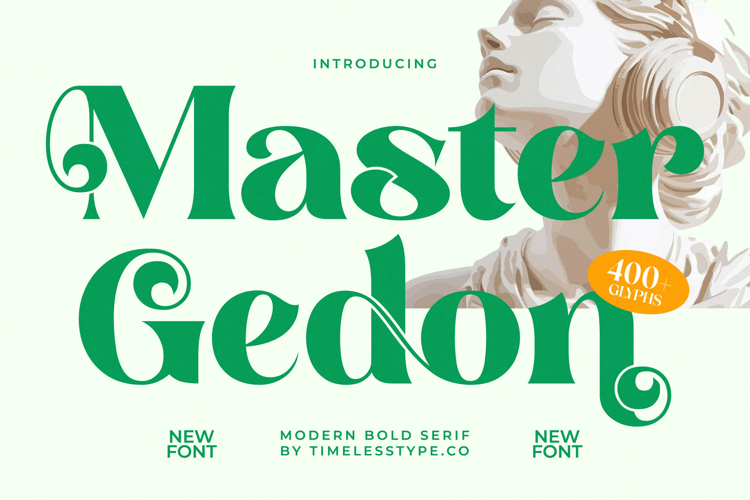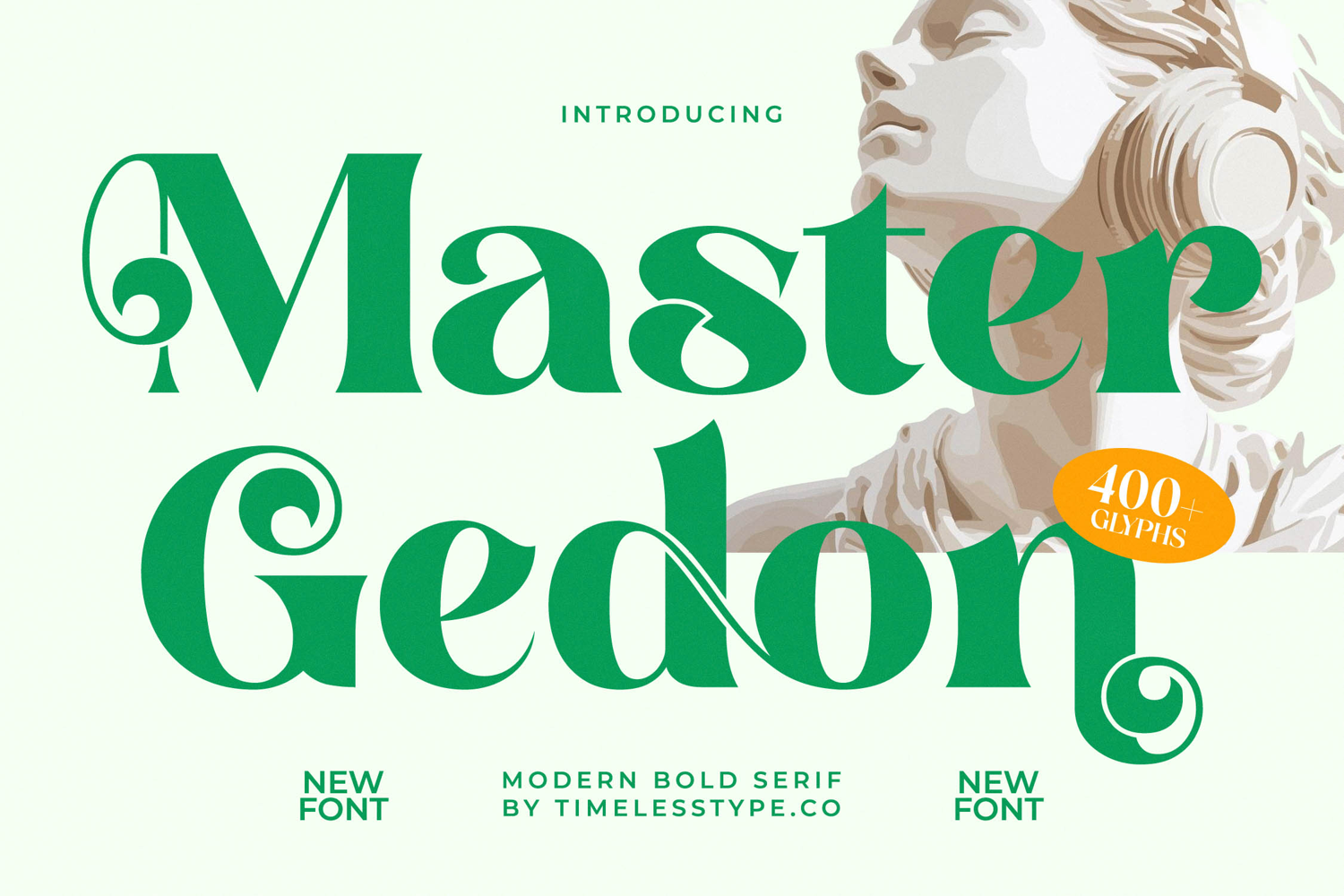
Master Gedon - Modern Bold Serif Font
Elevate your designs with the unparalleled elegance of Font Master Gedon - Modern Bold Serif Font Serif Display. This distinctive typeface masterfully blends traditional serif grace with a contemporary, bold presence, creating a powerful visual statement. Its striking high-contrast letterforms and refined curves are designed to capture immediate attention, making it an essential asset for any project demanding a sophisticated and memorable aesthetic.
Discover a typeface crafted for distinctive visual impact and creative versatility. Font Master Gedon - Modern Bold Serif Font Serif Display offers an impressive collection of 400+ glyphs, empowering designers with extensive creative freedom for truly unique compositions. Its robust weight and intricate details project an aura of modern luxury, ensuring your brand message is delivered with authority and artistic flair across all mediums.